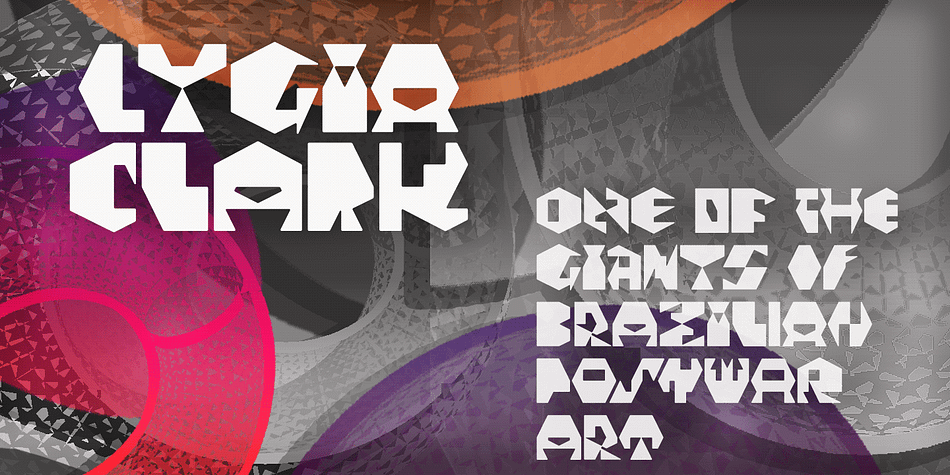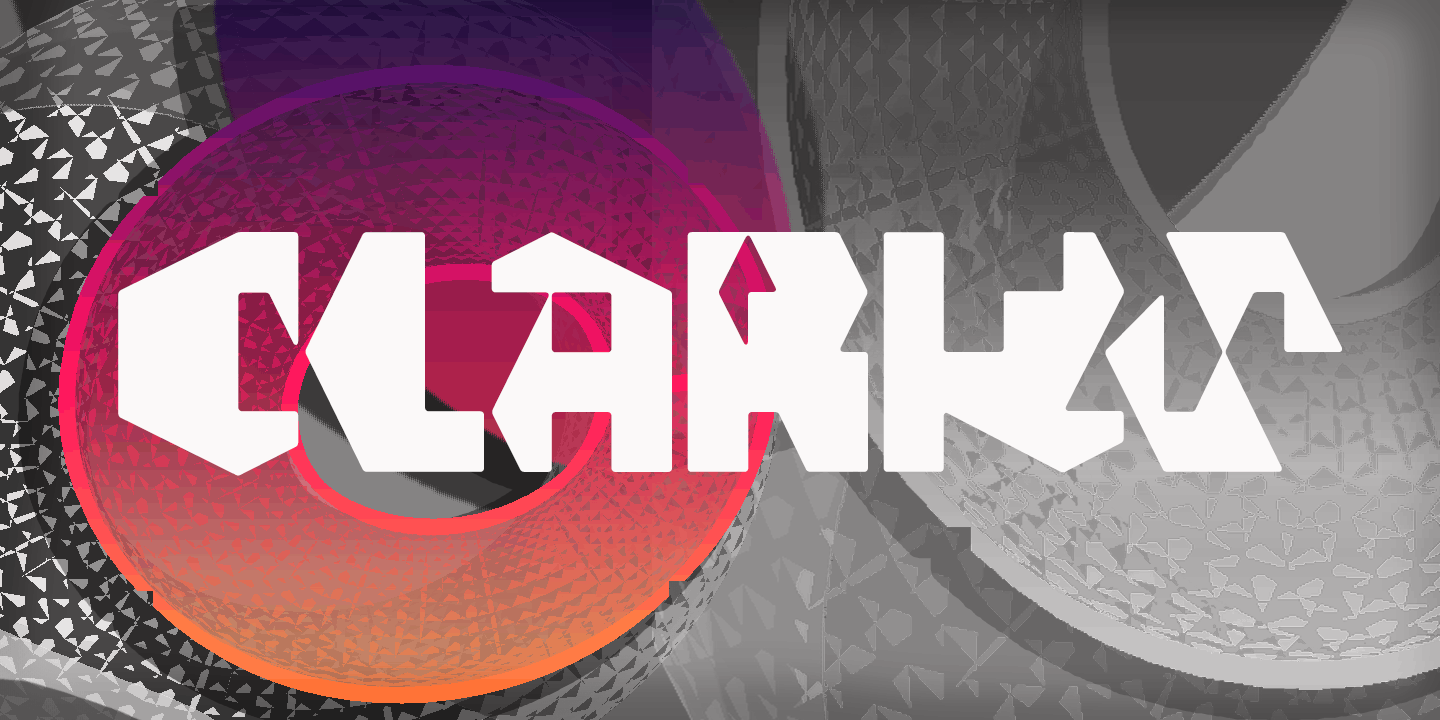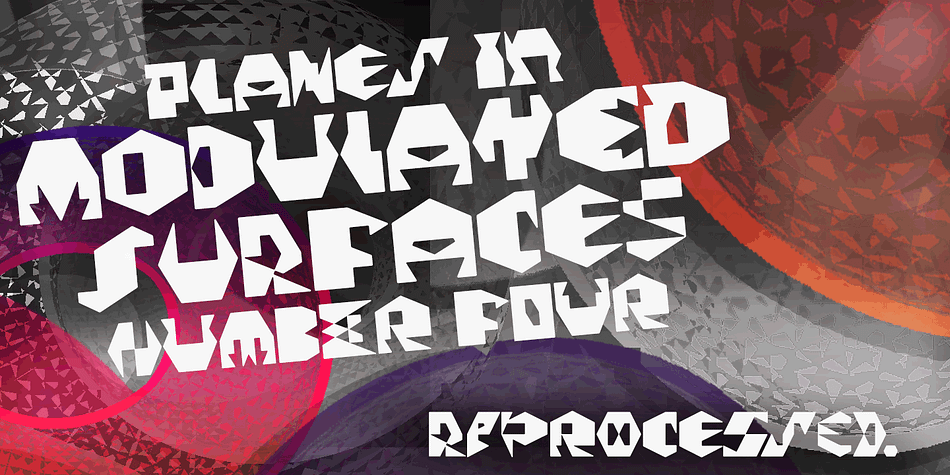
Designed by Ricardo Marcin and Erica Jung, Clarks is a display and novelty font published by PintassilgoPrints.
Clarks is a modular typeface built from a work by Lygia Clark, one of the giants of Brazilian postwar art.
Packed in a font equipped with clever OpenType programming, there are at least 7 different designs for each letter, thus allowing, or rather, proposing, boldly unconventional compositions.
The font is programmed to cycle all these different lettershapes, avoiding repetition. The user can also manually pick up preferred forms in a glyph palette. There are choices to both keep and to defy readability and it’s almost hypnotic, to play with these.
Lygia Clark used to invite viewers to touch her works and so we did with her ‘Planes in Modulated Surface no. 4’, from 1957: we fragment it and turned and inverted and recombined it. Now we return it as audacious typography and invite you to put it to work in your designs. Keep it bold and have fun! Cheers!